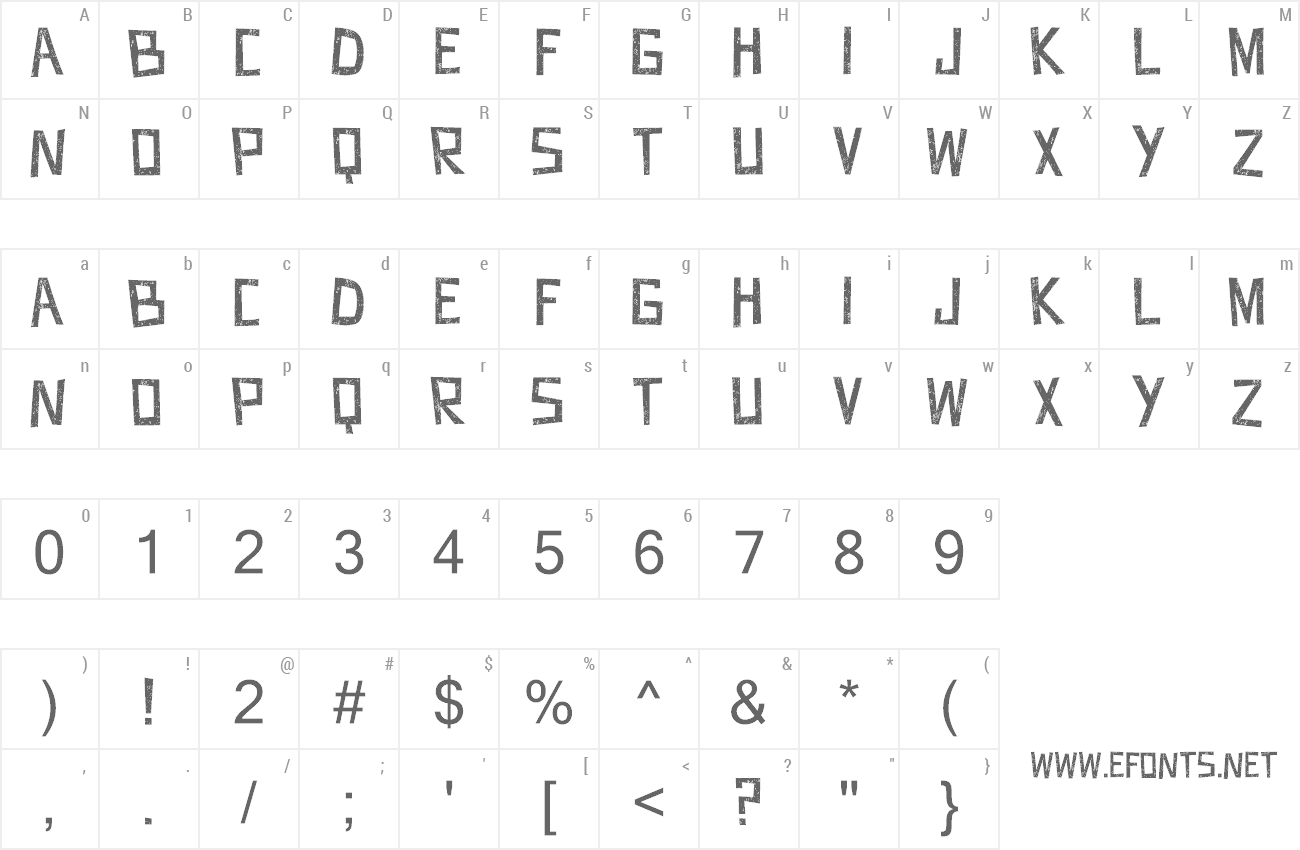
Preview and download James Fonts Font. Created by Harder Type Foundry in Fancy Cartoon styles with Free for personal use license.
| Font name: | James Fonts |
| Author: | Harder Type Foundry |
| Note by Harder Type Foundry | |
James Fonts was inspired by fonts on some vintage book comic,created intentionally with a rough version so perfecting the design you are working on. enjoy :) |